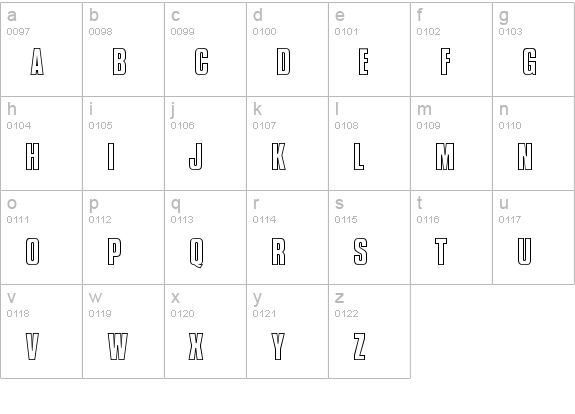
CompactaEF-BoldOutline Font Details
CompactaEF-BoldOutline is a striking and modern font that exudes confidence and boldness. Its bold outline design gives it a unique and eye-catching appearance, making it perfect for headlines, titles, and other attention-grabbing text. The geometric shapes and sharp lines of this font create a sleek and contemporary look that is sure to make a statement. Best of all, CompactaEF-BoldOutline is available for free download at FontsMarket.com. This means you can easily access and use this stylish font for all your design projects without any cost. Whether you're creating posters, logos, or social media graphics, CompactaEF-BoldOutline is a versatile choice that will add a touch of sophistication to your designs. Download it today and elevate your typography game with this bold and dynamic font.